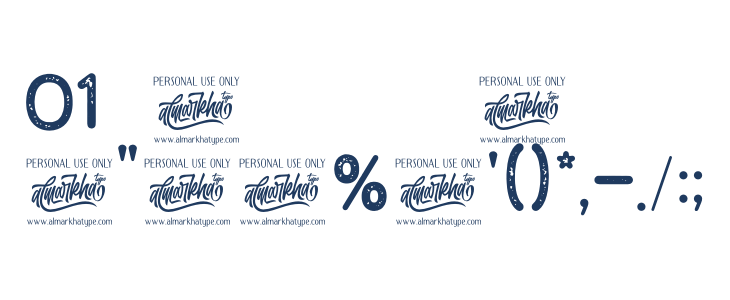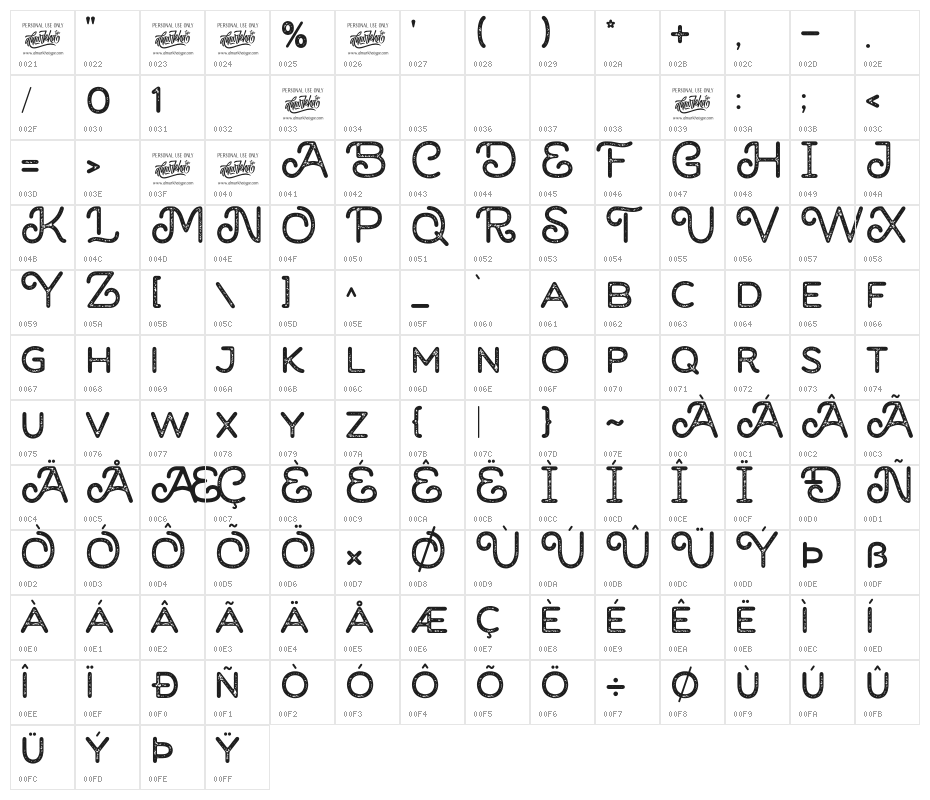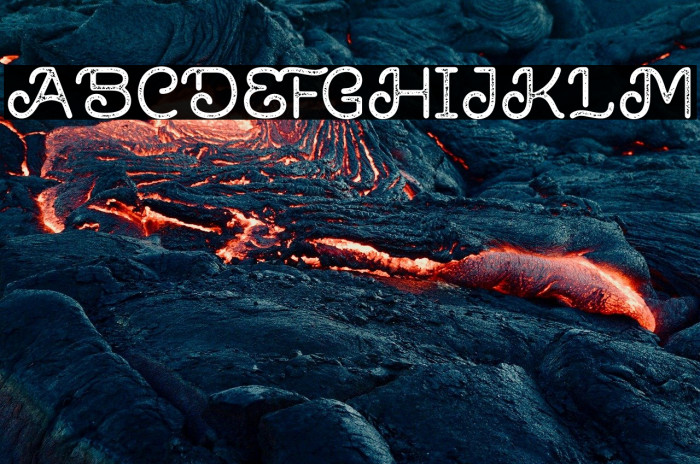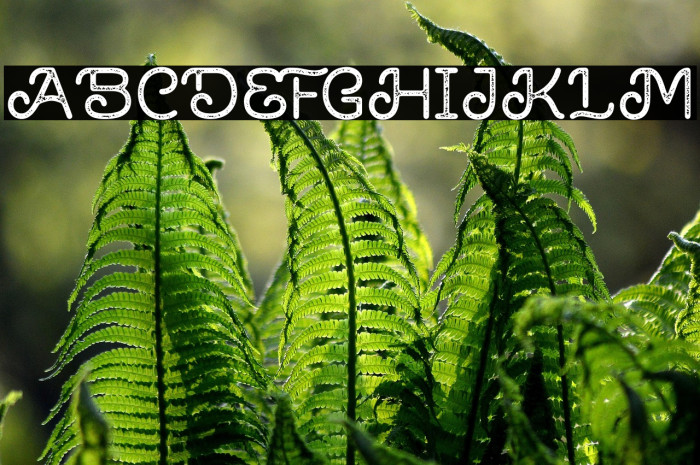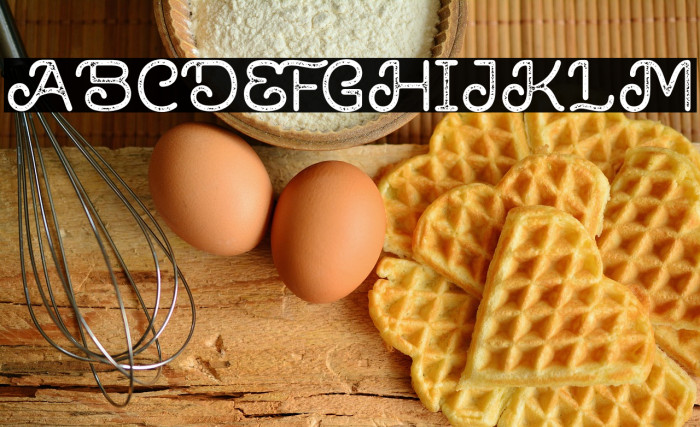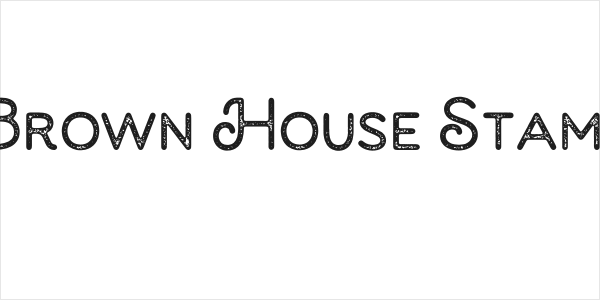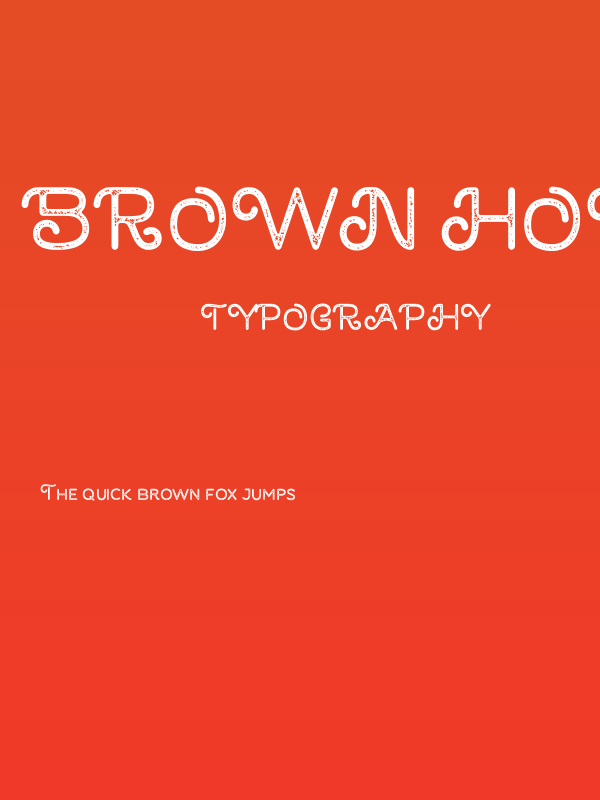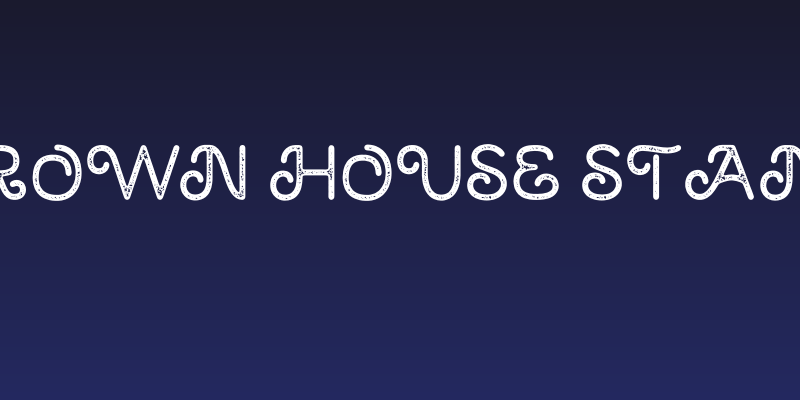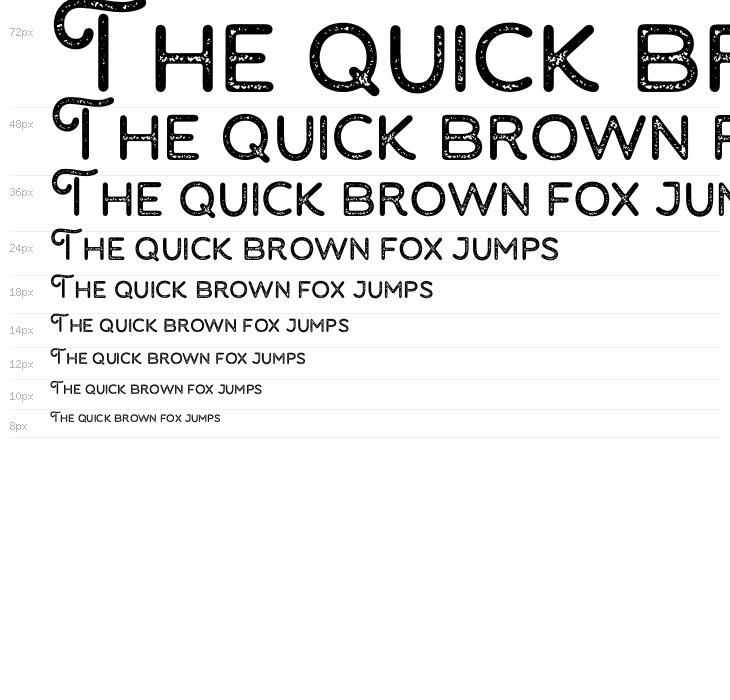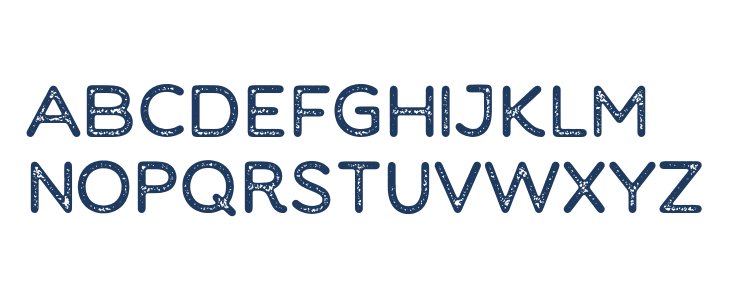
Brown House Stamp Font
Brown House Stamp Description
This font features a unique, distressed texture that gives it a vintage, worn-out appearance, reminiscent of old stamps or typewriter text. The uppercase letters are bold and slightly rounded, with a consistent thickness throughout each character. The lowercase letters maintain the same distressed style, providing a cohesive look across both cases. The numerals and special characters follow the same design, ensuring uniformity. This font's textured style adds a rustic charm, making it ideal for projects that require a touch of nostalgia or a handcrafted feel.
| Proposed Projects | Ideal for vintage-themed designs, posters, branding, packaging, and any project needing a rustic, handcrafted look. |